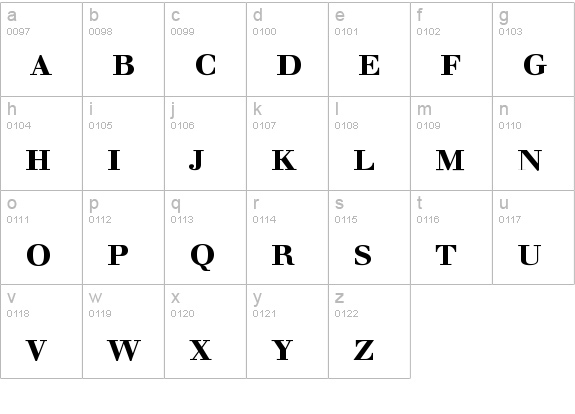
Walbaum Buch Exp Medium Font Details
Walbaum Buch Exp Medium is a balanced, medium-weight variant in the Walbaum typeface family \xE2\x80\x94 well suited to sub-headlines, navigation, and balanced editorial work.